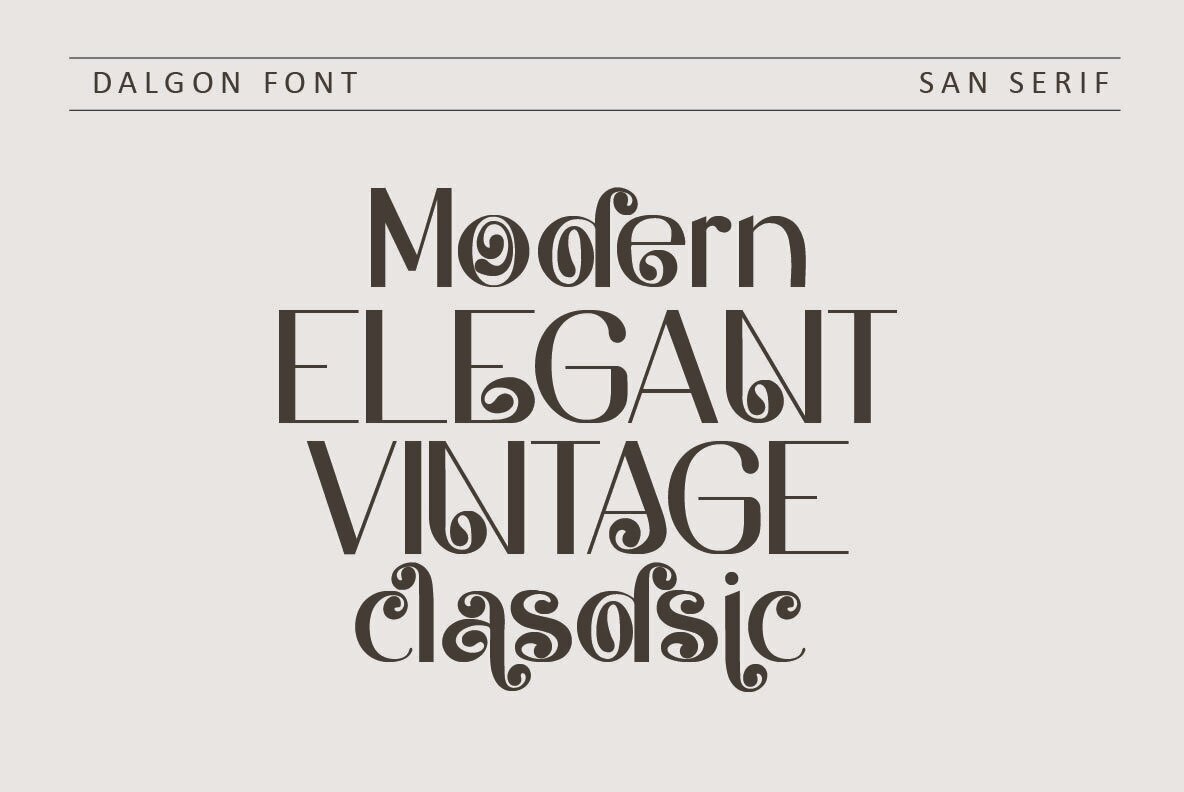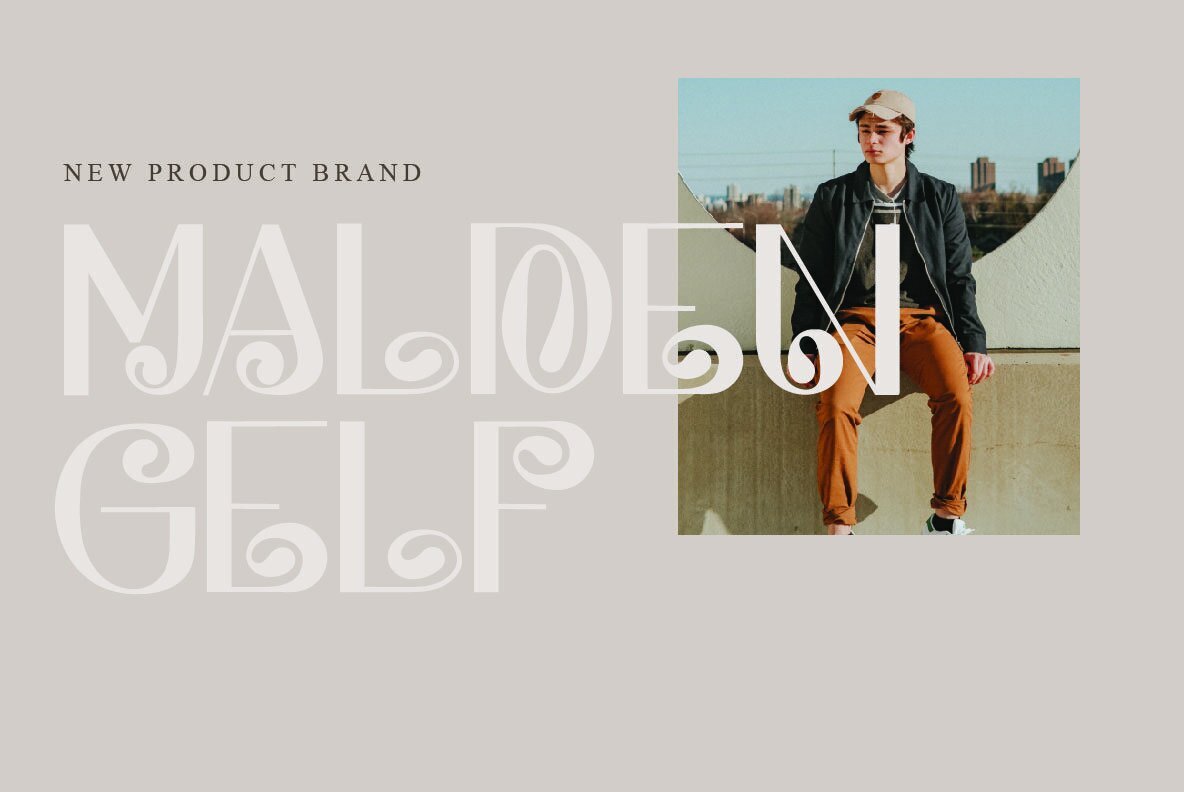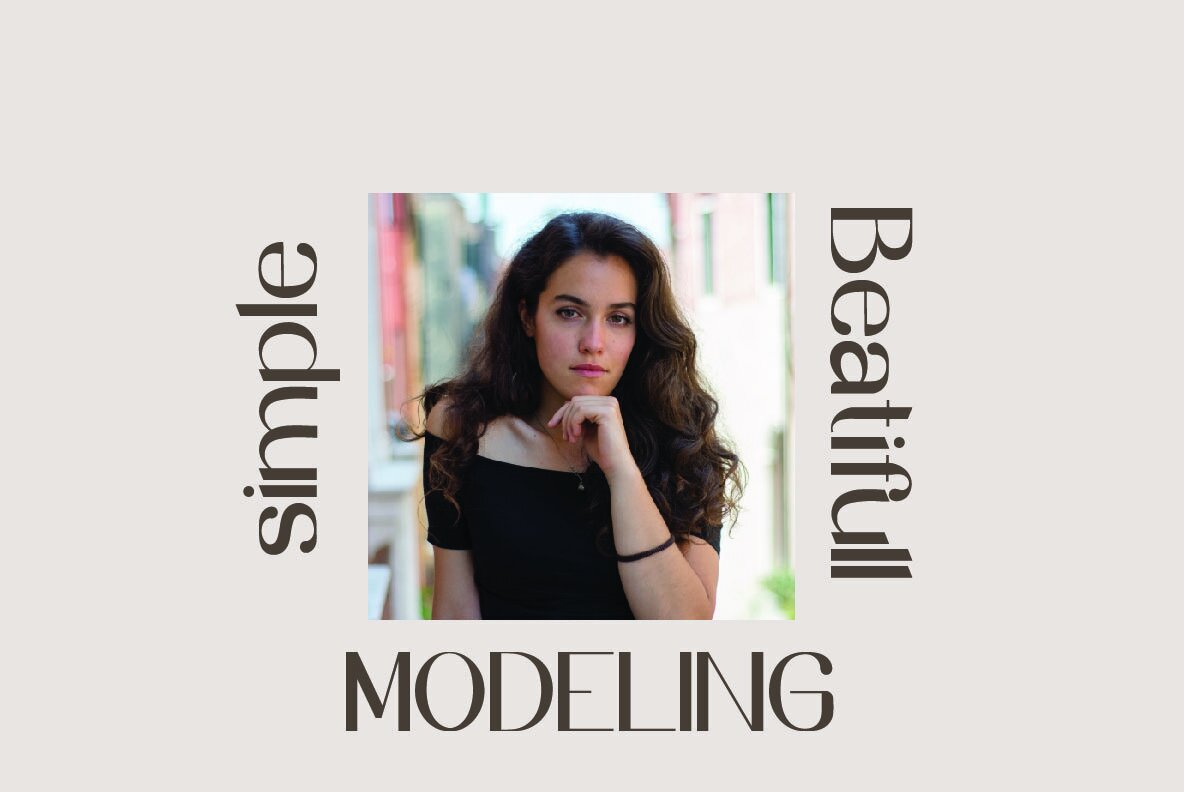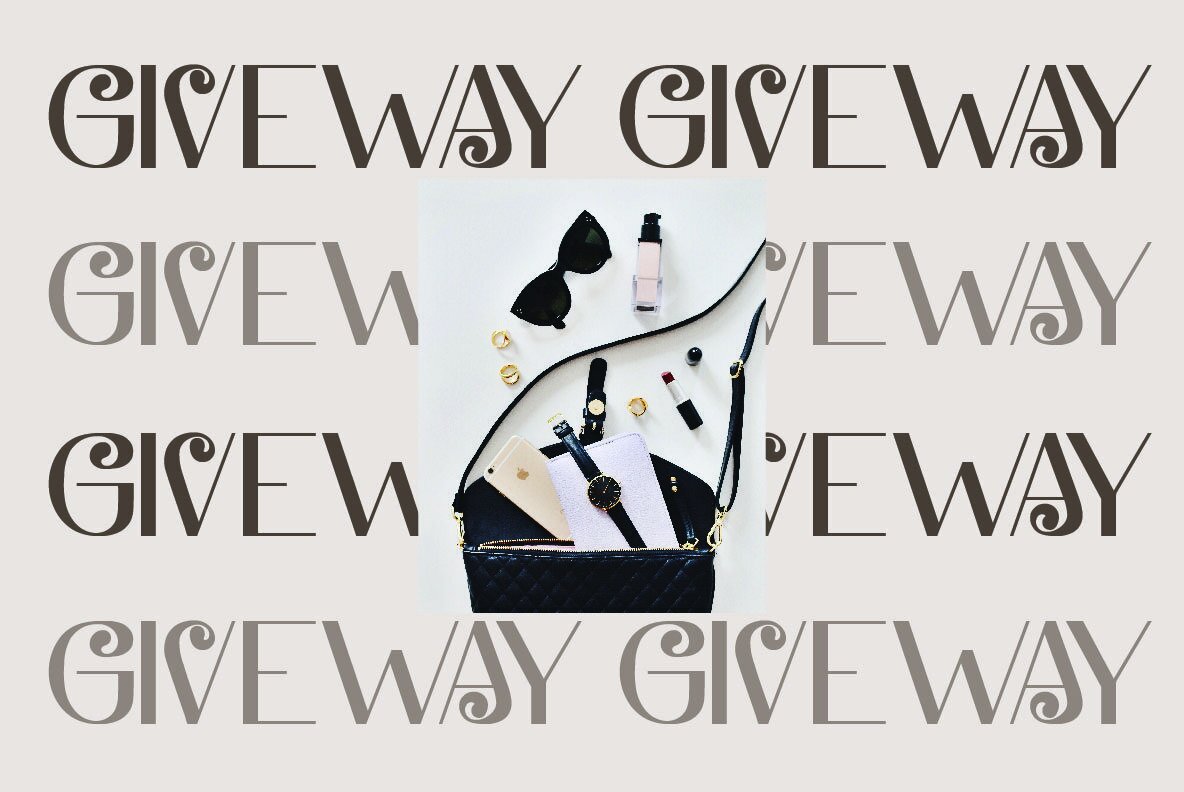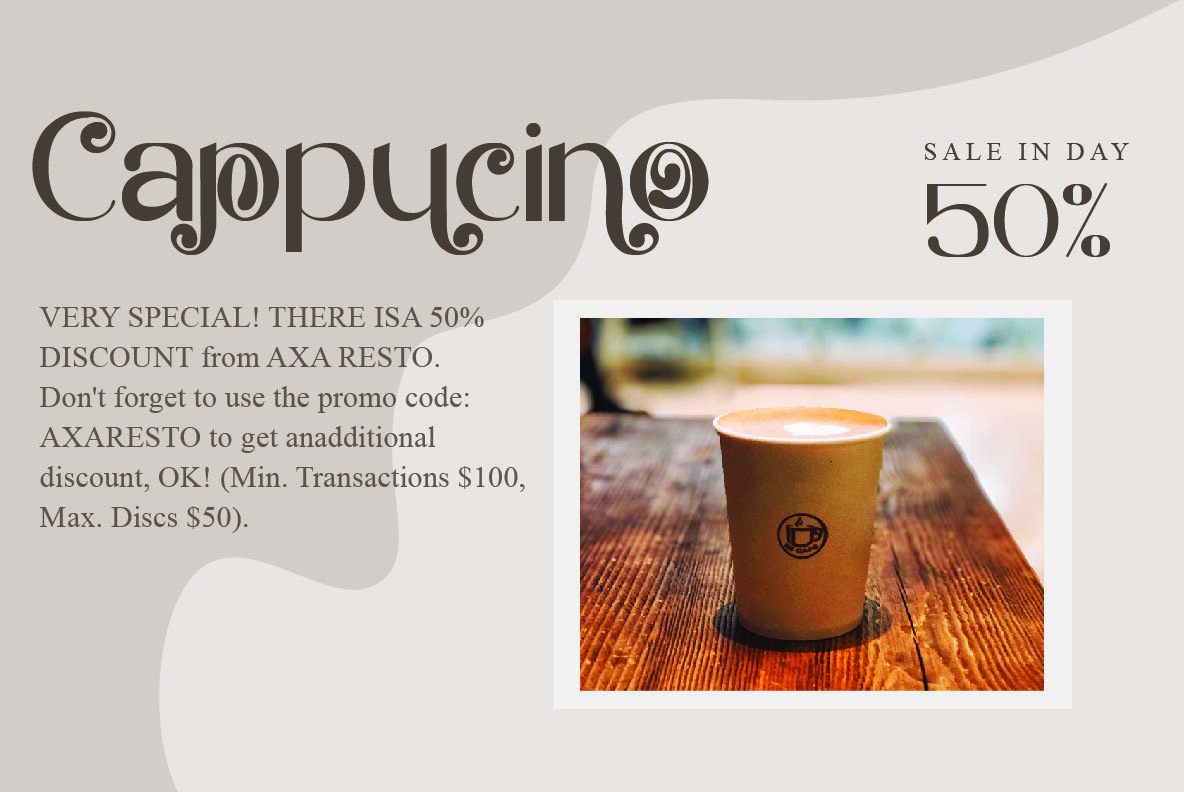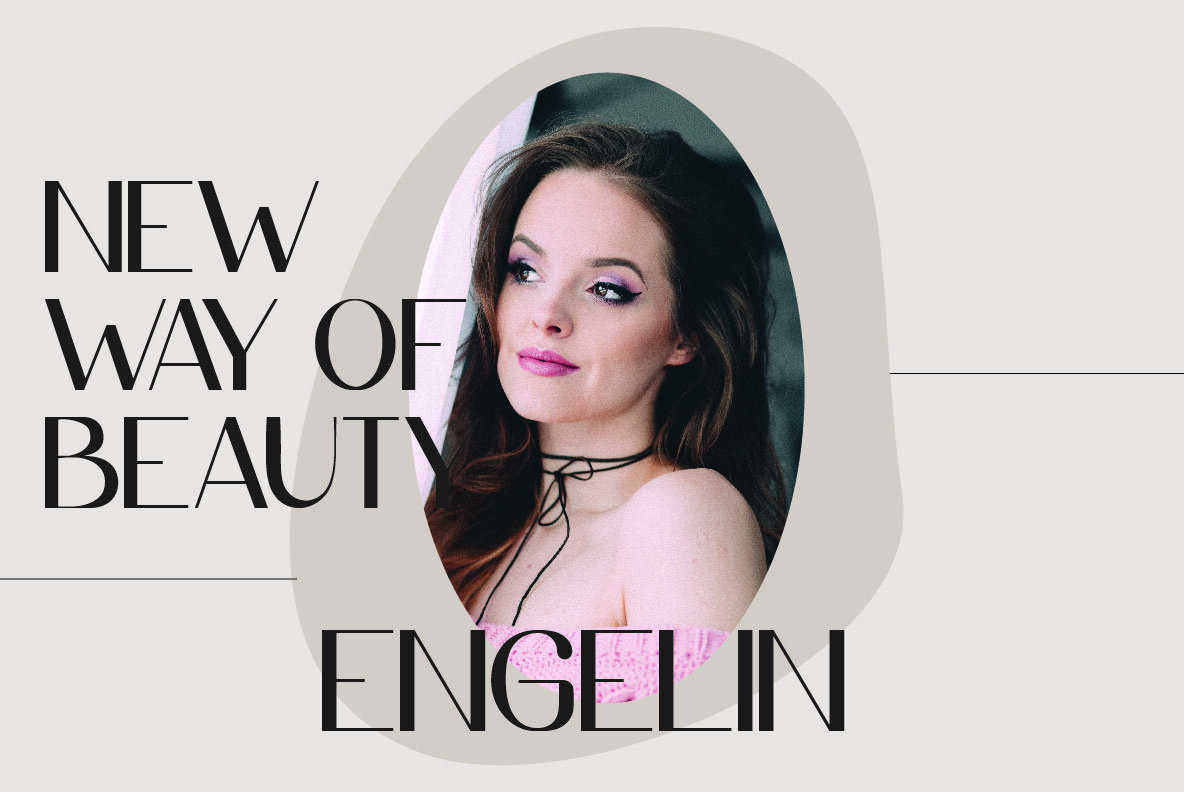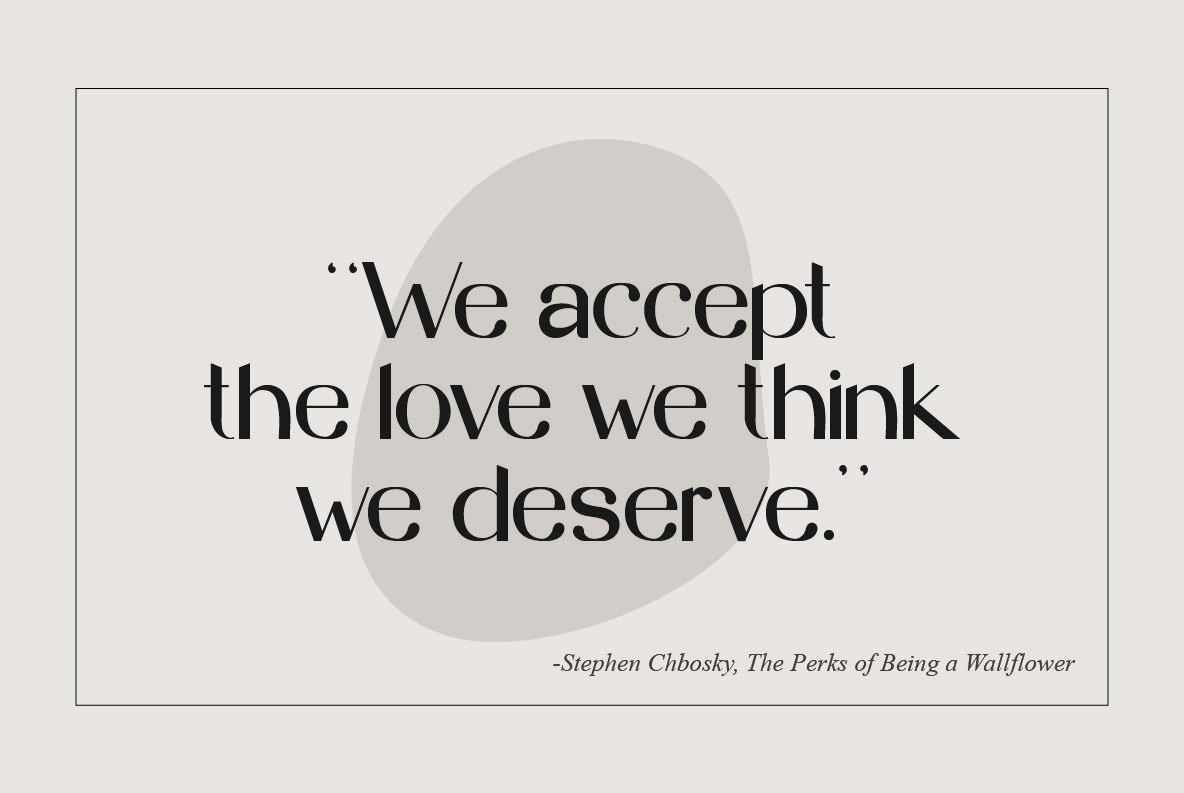
Dalgon Font
Dalgon
Dalgon offers a fresh perspective for those seeking contemporary typography solutions. This sans serif typeface, crafted with a focus on brand enhancement, brings a unique touch to any project through its distinctive ligatures. Ideal for designers and product owners, Dalgon enables stylish and modern aesthetics.Dalgon: A Modern Sans Serif for Branding
Designed with versatility in mind, Dalgon is equipped to meet the evolving needs of graphic designers.